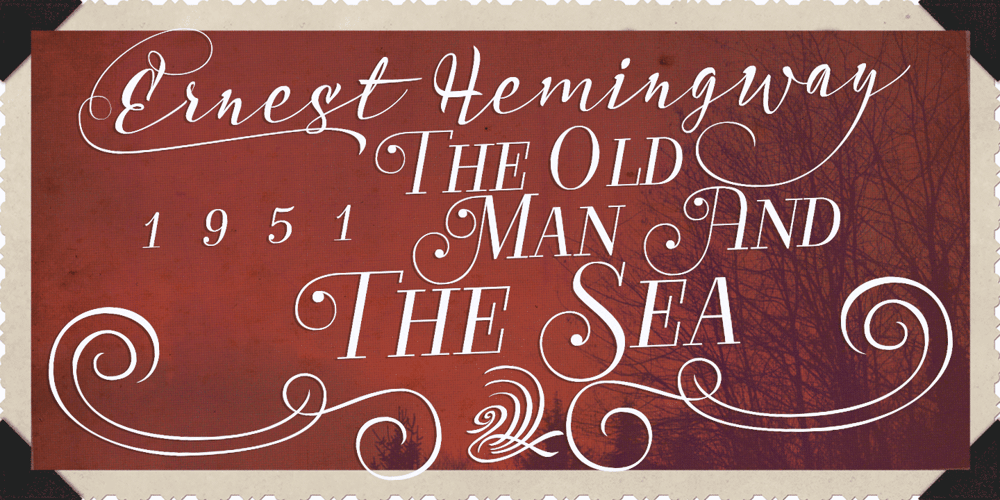
Acustica Font Family was designed by Carlos Fabián Camargo Guerrero and published by Andinistas. Acustica contains 6 styles and family package options. Acústica is a display font family designed by Carlos Fabian Camargo G. Its styles were designed to form words and phrases related to delicate and feminine contexts. Acústica Caps, Italic, Swashes and Ornaments are drawn investigations with flexible tip pen inspired by Didot capitals. All ideal for mixing with Acústica Script whose idea represents the volatile sound of a fine tip brush against rapid tracing paper. Its script path in width condensed lowercase and uppercase letters in loose horizontal proportions are generous between letters laced with long, agile and thin connecting strokes. Its script sensitivity is in Italian calligraphy with uninterrupted lines of cursive English. Acústica was selected at the Bienal Tipos Latinos 2014. Photos by http://www.desdeesteladodemimundo.blogspot.com